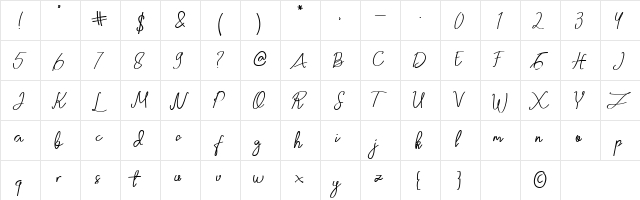
Zumattan Regular
| Designer | Ahmad Muslimin |
Design Context for Zumattan Typeface
Zumattan is a composed and adaptable typeface that performs quietly and consistently across a wide range of design contexts.